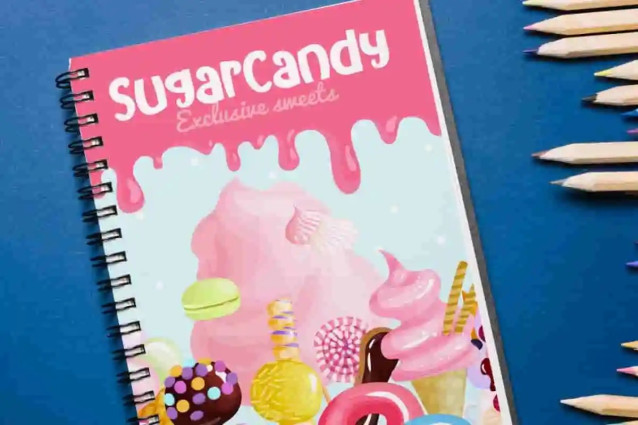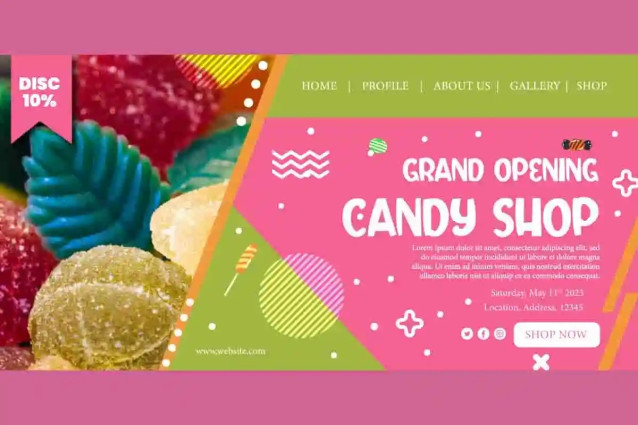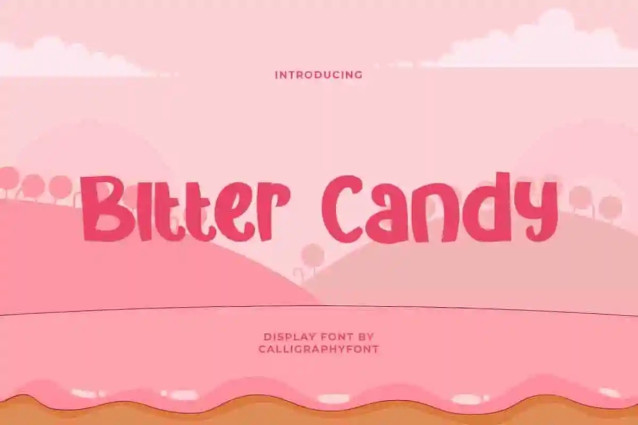
Bitter Candy Font
Bitter Candy Font is a foodist adorable display font with cute shapes. Exclusively created to perfect your design! These letters would be a great choice for birthday invitations, book titles, etc.